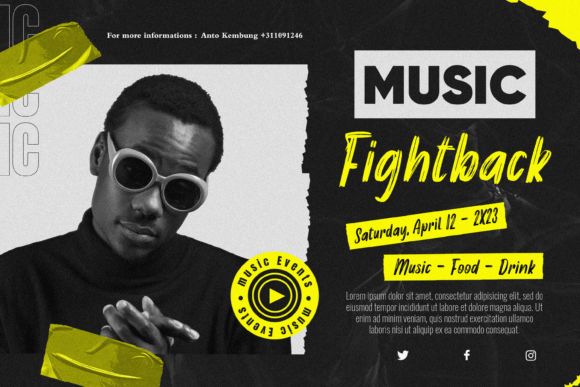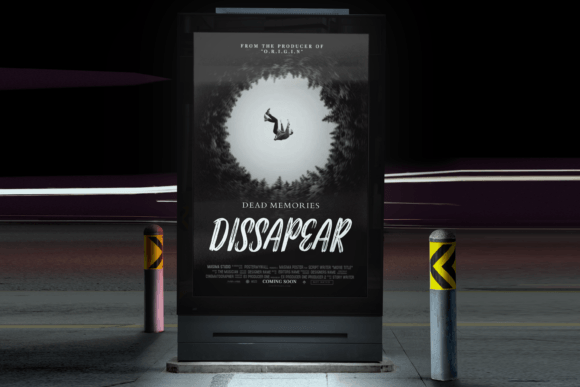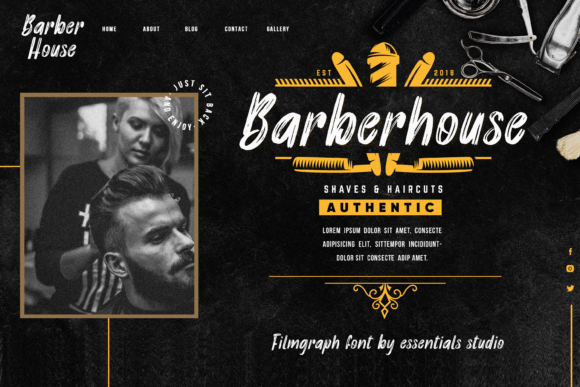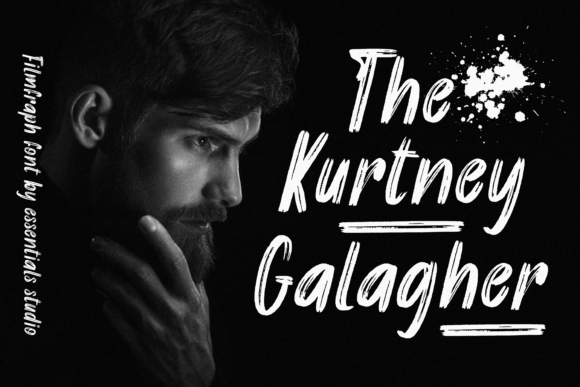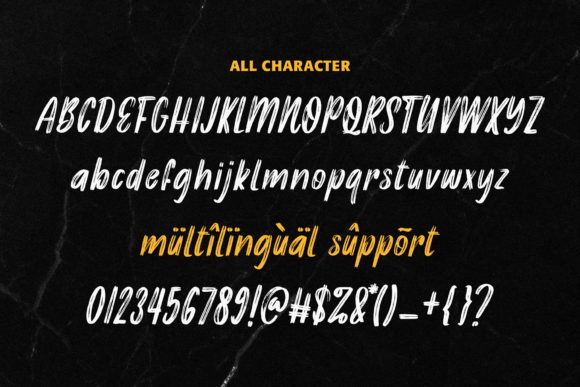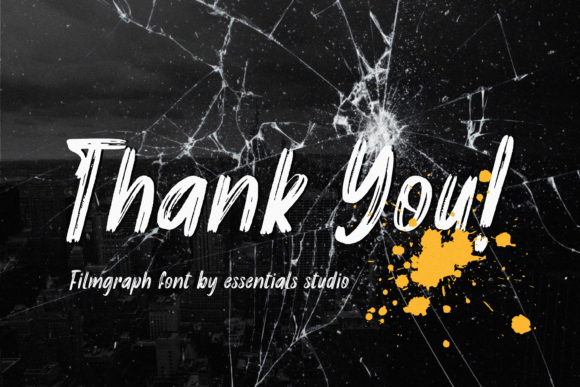
The Designer’s Dream: Filmgraph Font
Have you ever been in the middle of a design project, and suddenly, you’re stuck on finding the perfect font? I recall a recent experience where I was working on a branding project for a trendy coffee shop. My client wanted a modern, fresh look that would appeal to the younger crowd. As I scrolled through my font library, I stumbled upon Filmgraph – a modern and cool handwritten brush font that instantly elevated my design. In this article, I’ll share my experience with Filmgraph, its features, and how to make the most of it in your designs.
An Honest Review of Filmgraph
What I Love About Filmgraph ✨
- ✅ Modern and Fresh Look: Filmgraph has a contemporary feel that will instantly enhance any project.
- ✅ Handwritten Brush Style: The font’s handwritten brush style adds a personal touch to any design.
- ✅ Versatile: Filmgraph can be used for a variety of design projects, from branding to social media graphics.
- ✅ Easy to Read: Despite its modern and artistic style, Filmgraph remains highly legible.
- ⚠️ Limited Formality: Filmgraph’s modern and artistic style might not be suitable for very formal or traditional projects.
- ⚠️ Glyph Limitations: While Filmgraph has a range of glyphs and OpenType features, it might not have every special character or symbol you need.
The Designer Inspiration Behind Filmgraph
Filmgraph was created with the modern designer in mind. Its fresh and artistic style is inspired by the latest design trends and the world of hand-drawn typography. The font’s creator aimed to craft a typeface that would be both versatile and stylish, suitable for a wide range of design projects.
Q: What type of projects is Filmgraph best suited for?
A: Filmgraph is ideal for modern, creative projects such as branding, social media graphics, posters, and flyers.
Q: Does Filmgraph support OpenType features?
A: Yes, Filmgraph supports OpenType features, including glyphs and stylistic alternates.